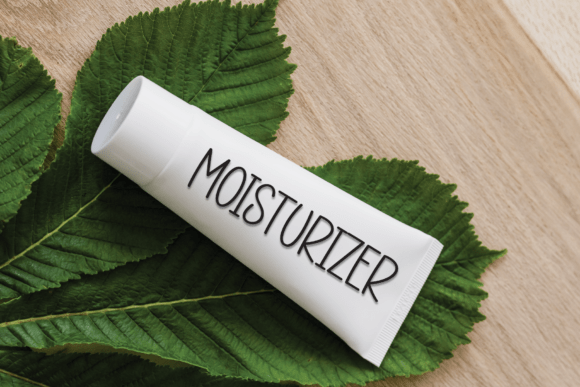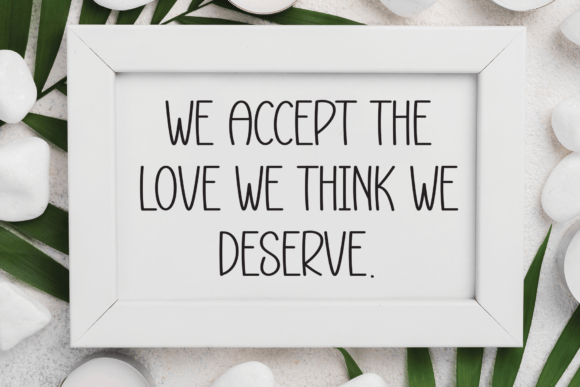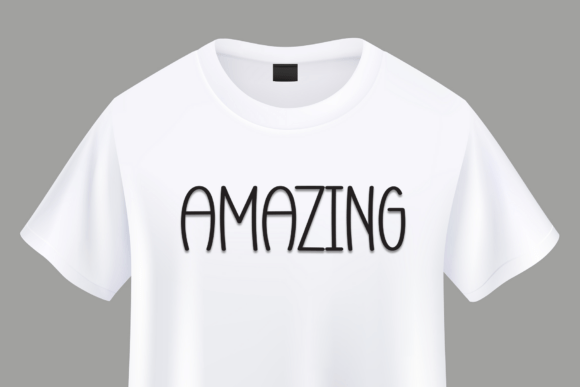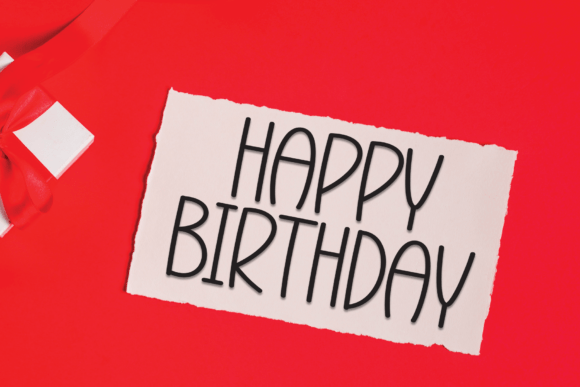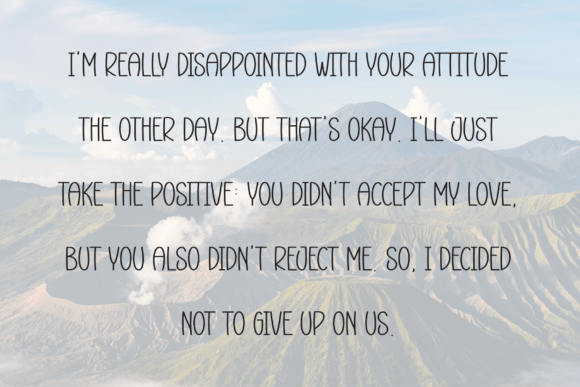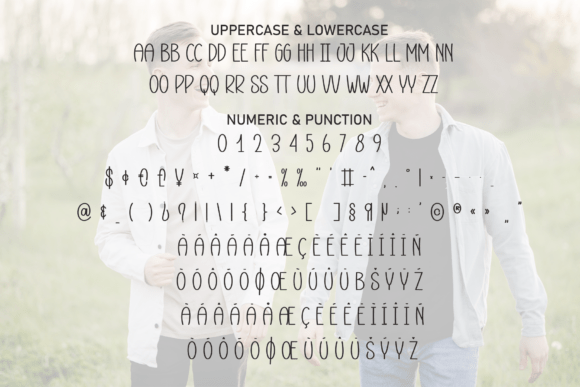
Introducing Brothers Font: The Ultimate Choice for Designers and Crafters
In the world of typography, a font can make all the difference in the success of a design project. Whether you’re a professional designer or a crafter, finding the right font can be a daunting task. However, if you’re looking for a clean, simple, and handmade font with a friendly personality, look no further than Brothers Font. In this article, we’ll explore the features and benefits of Brothers Font, and why it’s the perfect choice for your next design project.
What is Brothers Font?
Brothers Font is a modern, handmade font designed with a natural and effortless feel. Its clean and simple design makes it perfect for a wide range of applications, from casual branding to YouTube thumbnails and minimalist merch designs. The font’s friendly personality shines through in its subtle imperfections and organic feel, giving your designs a personal touch.
Key Features of Brothers Font
- Clean and Simple Design: Brothers Font boasts a clean and simple design that makes it easy to read and versatile for various applications.
- Handmade with a Natural Feel: The font’s handmade nature gives it a unique, organic feel that adds a personal touch to your designs.
- Friendly Personality: Brothers Font exudes a friendly personality, making it perfect for designs that require a approachable and welcoming tone.
- Versatile: Whether you’re designing for branding, YouTube thumbnails, or merchandise, Brothers Font adapts seamlessly to different contexts.
Use Cases for Brothers Font
Brothers Font is an incredibly versatile font that can be used in a variety of design projects. Here are some use cases where Brothers Font shines:
- Casual Branding: Brothers Font is perfect for creating a friendly and approachable brand identity. Its clean design and natural feel make it suitable for logos, business cards, and letterheads.
- YouTube Thumbnails: Stand out on YouTube with eye-catching thumbnails designed using Brothers Font. Its bold and yet friendly appearance grabs viewers’ attention and invites them to click.
- Minimalist Merch Designs: For crafters and merchandise designers, Brothers Font offers a simple yet stylish solution for creating minimalist designs that appeal to a wide audience.
Why Choose Brothers Font?
- Unique yet Legible: Brothers Font strikes the perfect balance between uniqueness and legibility, ensuring your message is conveyed clearly and effectively.
- High-Quality Design: As a professionally designed font, Brothers Font offers high-quality design elements that elevate your projects and make them stand out.